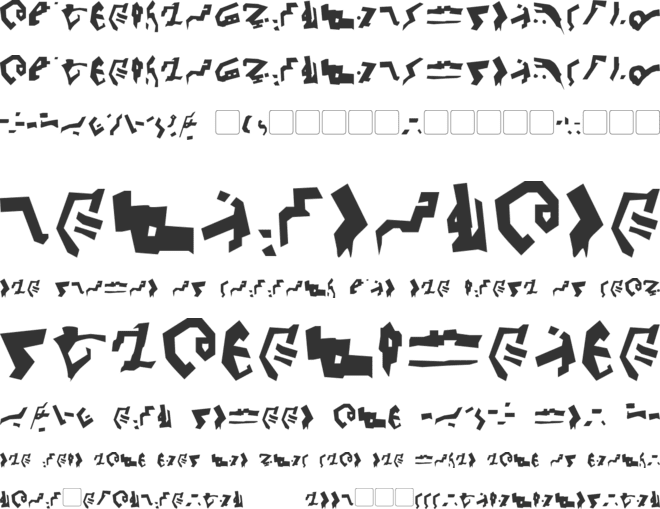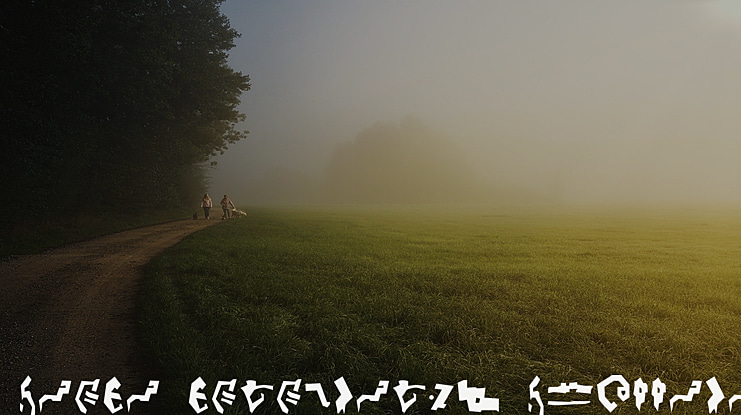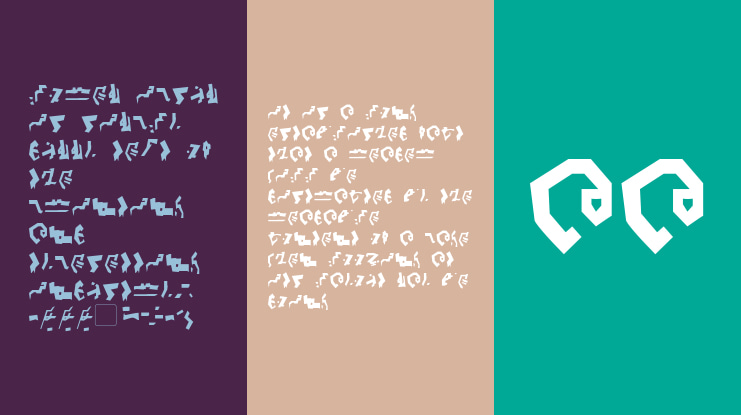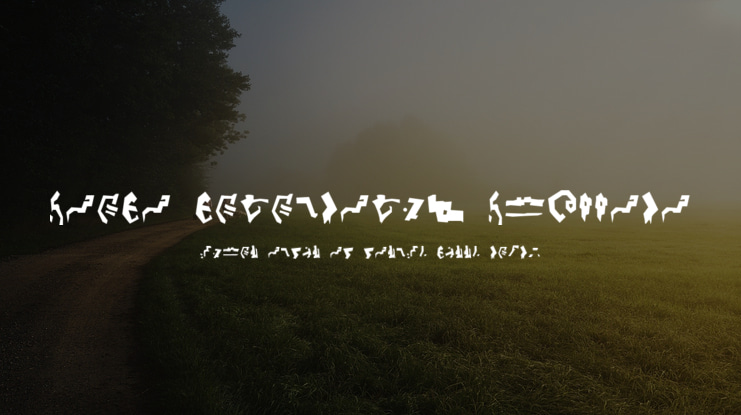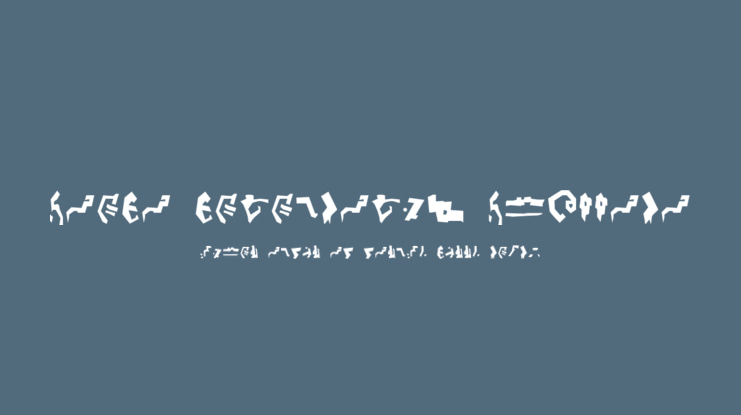
Giedi Decepticon Graffiti Font
Giedi Decepticon Graffiti is an updated of Jim Sorenson’s Decepticon Graffiti font (with permission). The face is based on the spray-painting vandalism found in Marvel’s Transformers comic. Includes all known canonical symbols, along with Maximal and Predacon symbols replacing the left and right brackets, respectively.